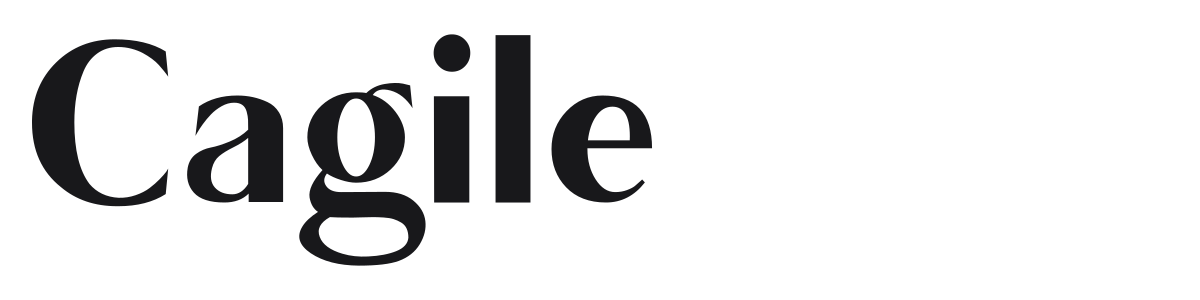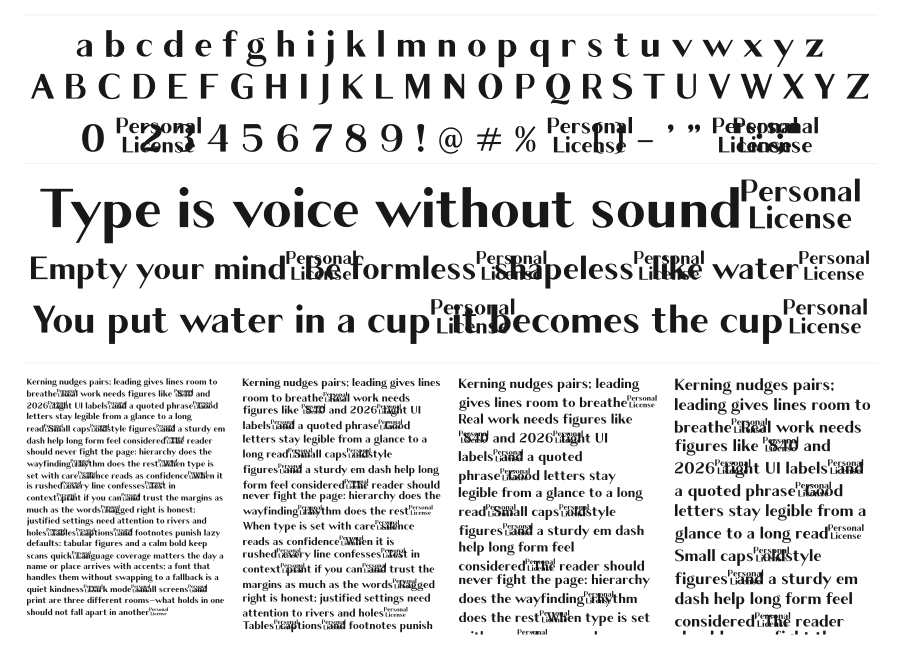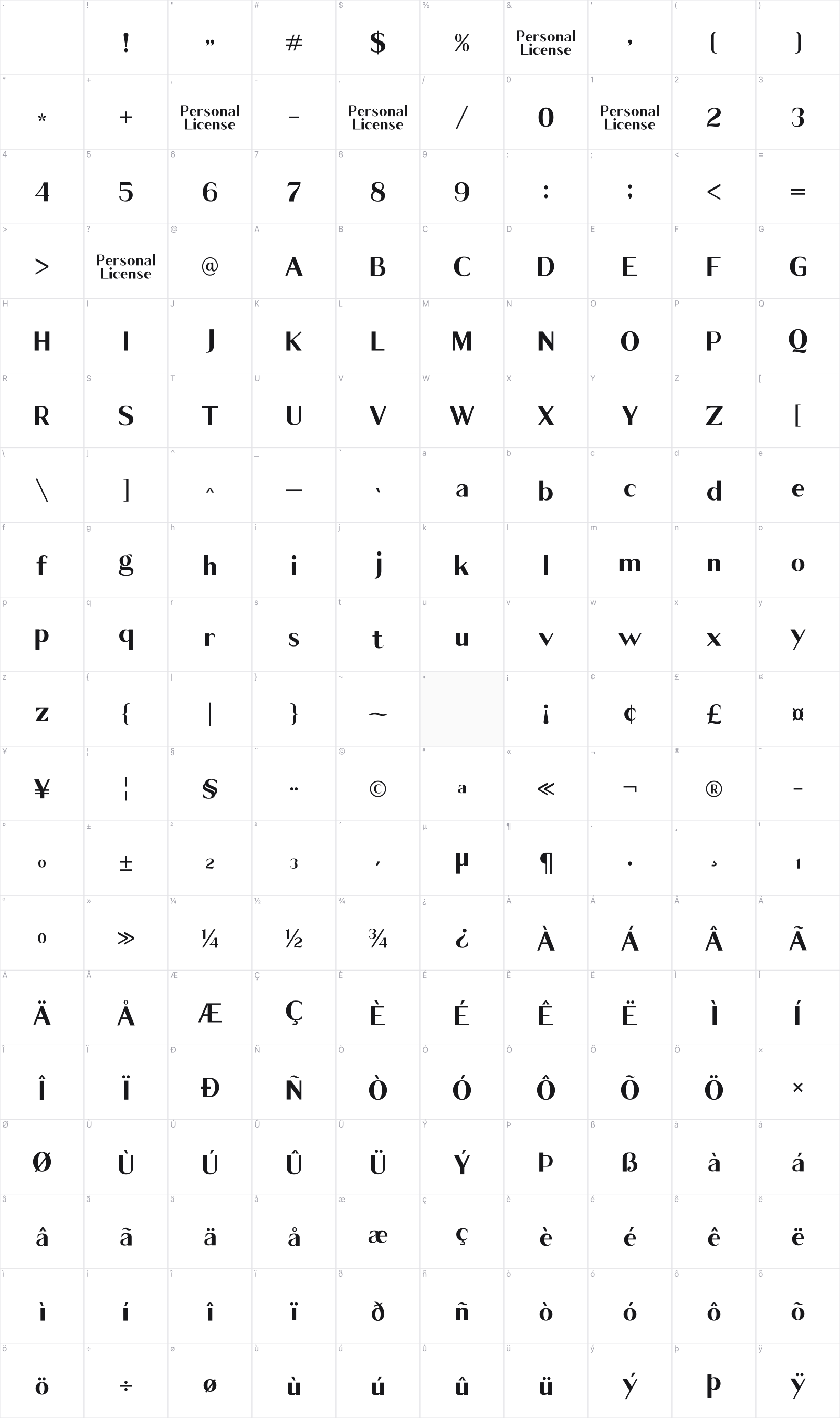
Cagile
Cagile is a bold modern serif built on dramatic stroke contrast, with thick stems tapering into near-hairline horizontals in the Didone tradition. The wide, open proportions and refined ball terminals give it a polished elegance that reads as confident rather than delicate. Strong at large sizes in fashion editorial, brand identity, and poster work.